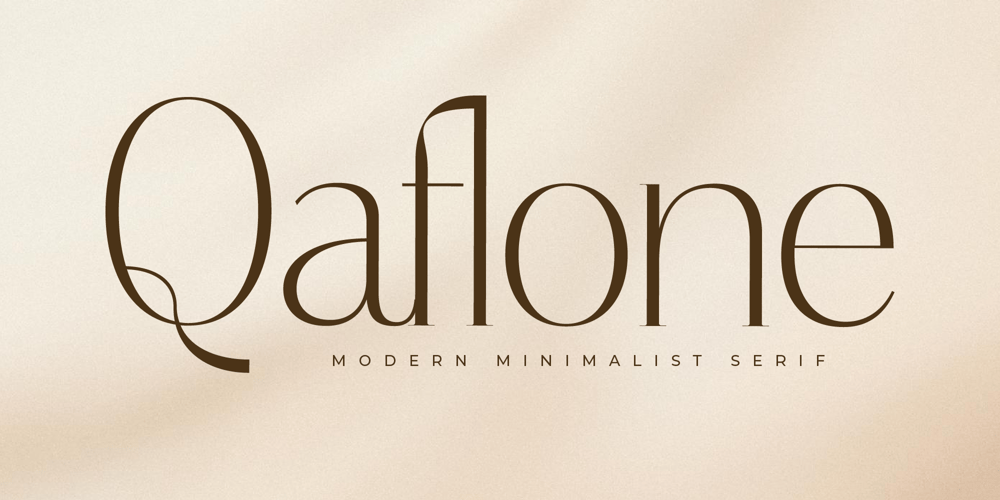
Qaflone Font Family was designed by Heru Utama Putra and published by Letterena Studios. Qaflone contains 2 styles and family package options. Proudly present Qaflone Typeface , created by Storytype,A serif modern and classic typeface that has own unique style & modern look.This typeface is perfect for an elegant & luxury logo, book or movie title design, fashion brand, magazine, clothes, lettering, quotes, and so much more.